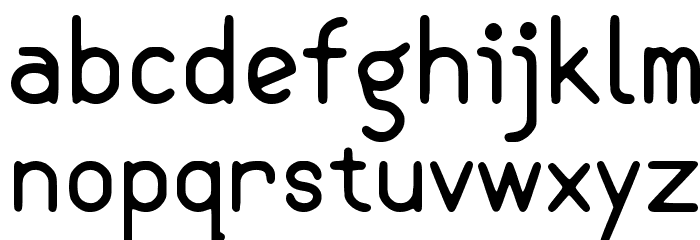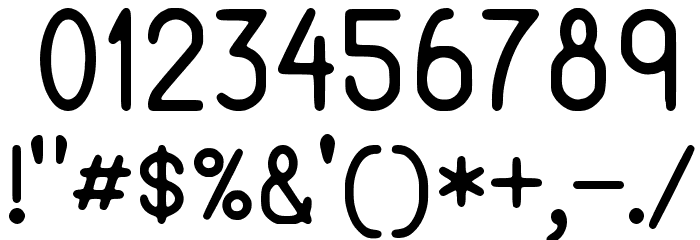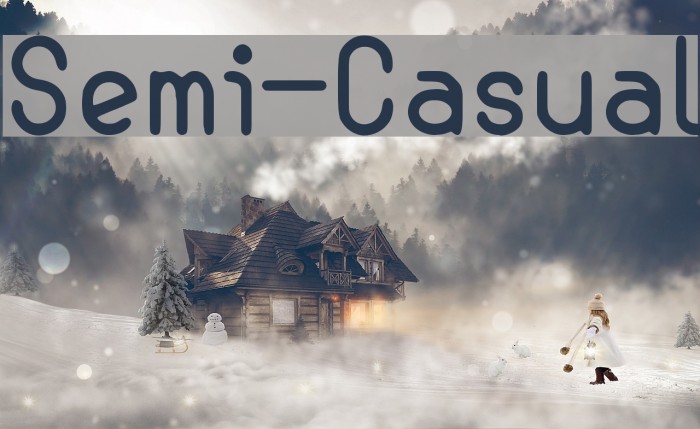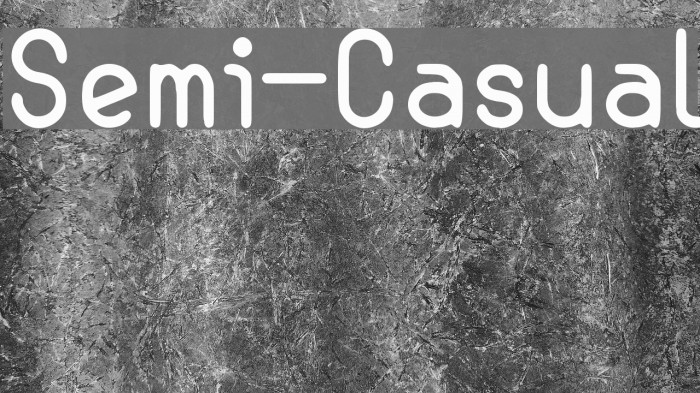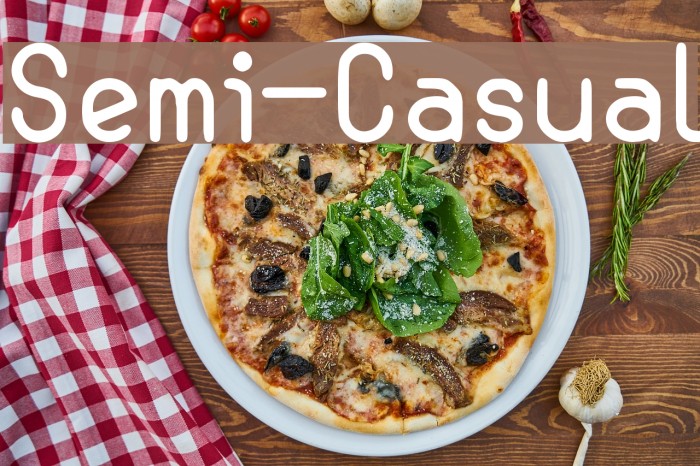
Semi-Casual Font
This font features a playful and approachable design with rounded edges and a friendly appearance. The characters are evenly spaced, providing a clean and organized look. The uppercase letters are bold and prominent, while the lowercase letters maintain a consistent style with slightly less weight. The numerals are clear and easy to read, matching the overall aesthetic of the font. Special characters are well-integrated, maintaining the same rounded and smooth characteristics. This font is versatile, suitable for both casual and professional settings, offering a balance between readability and style.
A playful, rounded font with a friendly and approachable design.
- Proposed Projects: Ideal for children's books, casual branding, greeting cards, and playful advertising campaigns.
- Use Case: Headlines, Logos, Informal Text